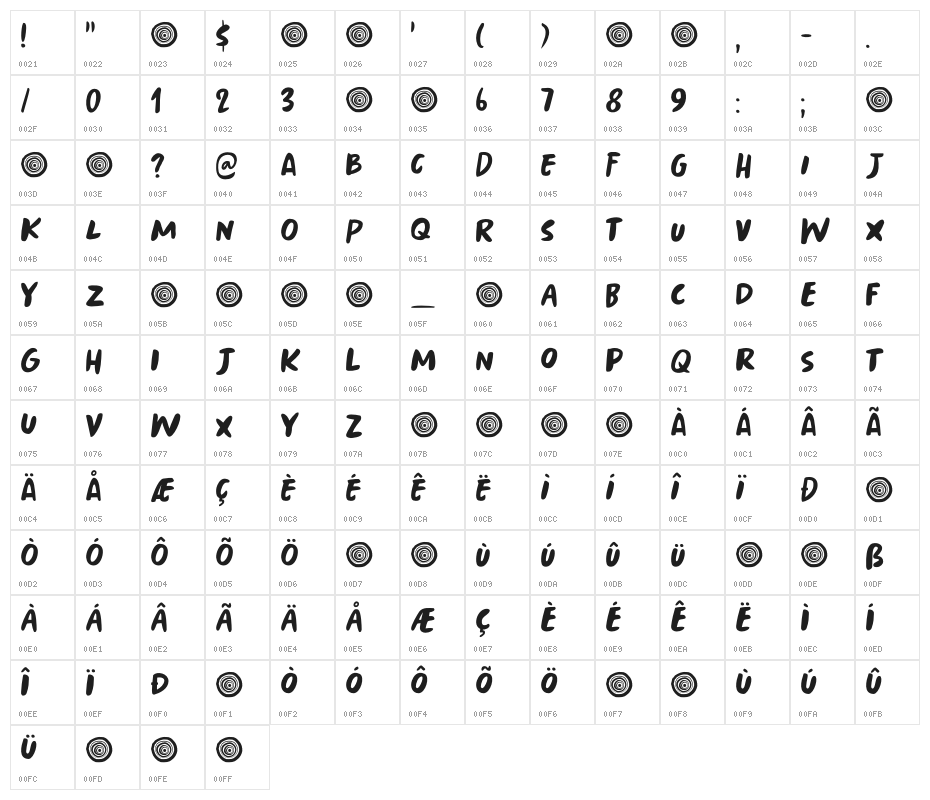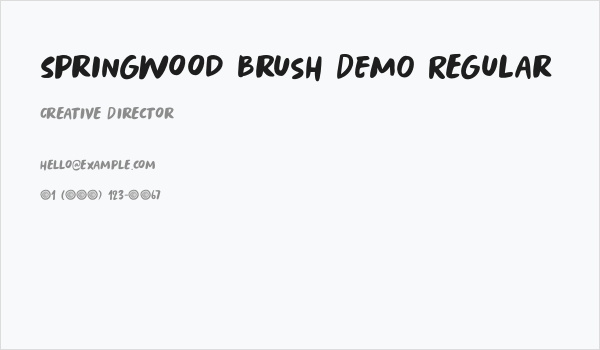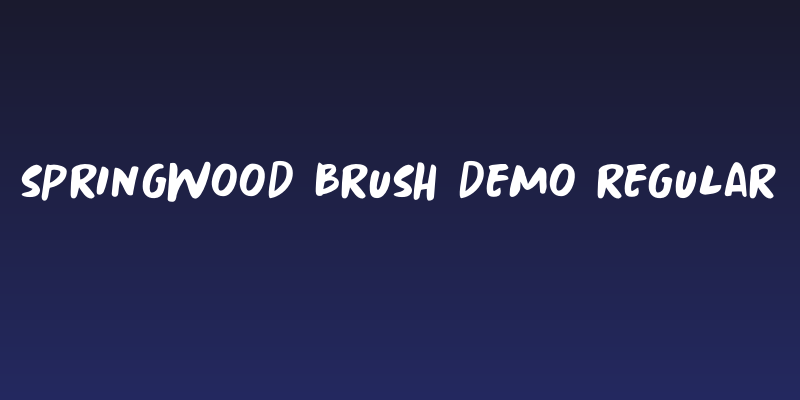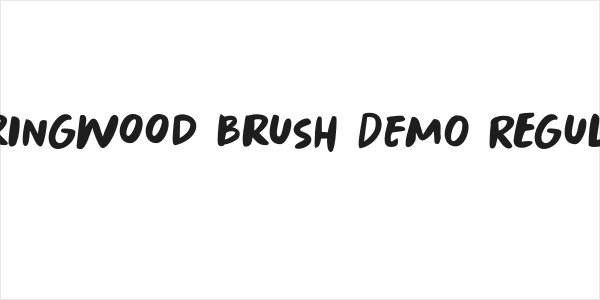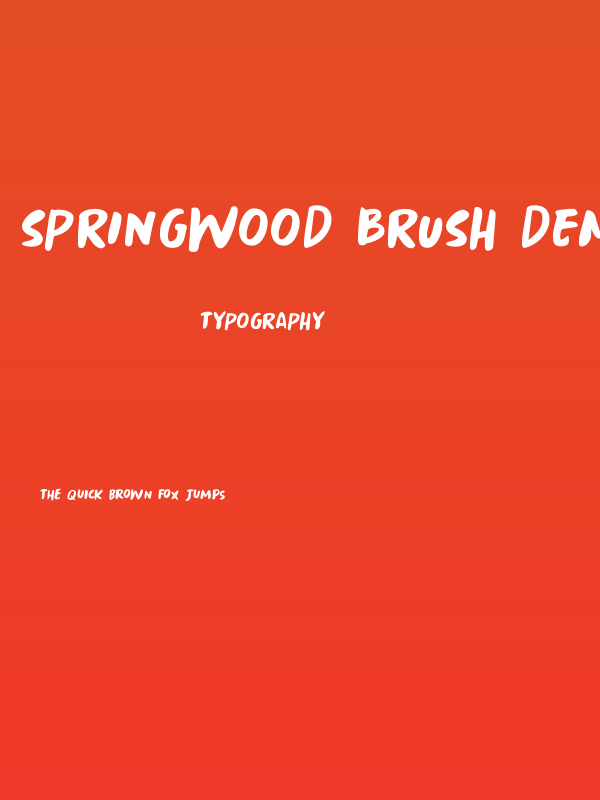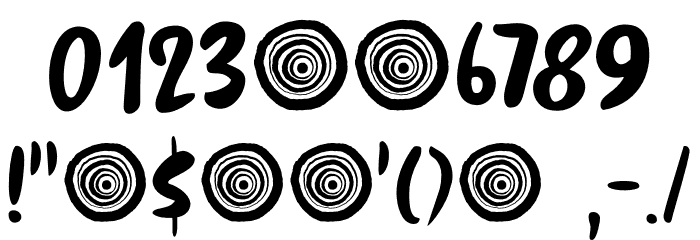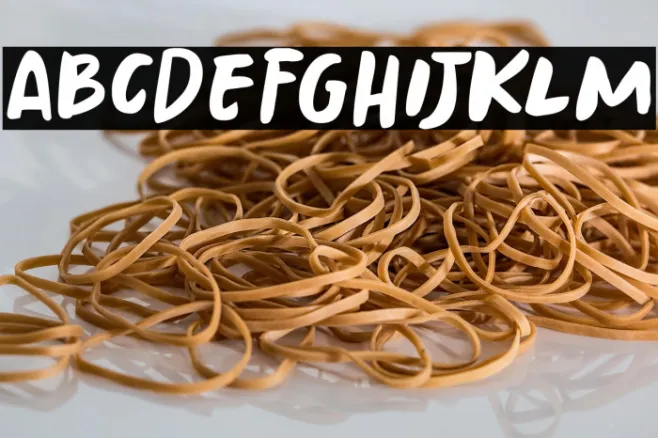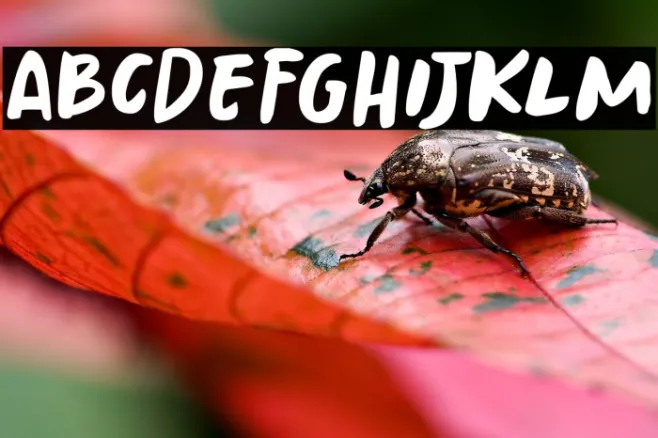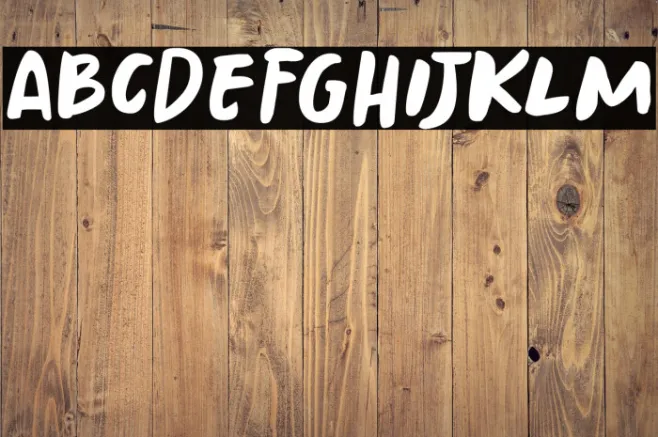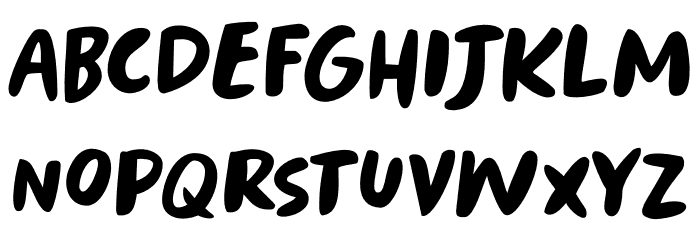
Springwood Brush DEMO Regular Font
Springwood Brush DEMO Regular Description
This font features a bold, brush-like style with a dynamic and energetic appearance. The characters are crafted with a hand-painted aesthetic, giving them a lively and informal feel. The strokes are thick and consistent, providing a strong visual impact. The uppercase and lowercase letters maintain a cohesive look, while the numbers and special characters complement the overall design. The font's playful and artistic nature makes it suitable for creative projects that require a personal touch.
| Proposed Projects | Ideal for posters, invitations, branding, and any project that benefits from a personal, artistic touch. |